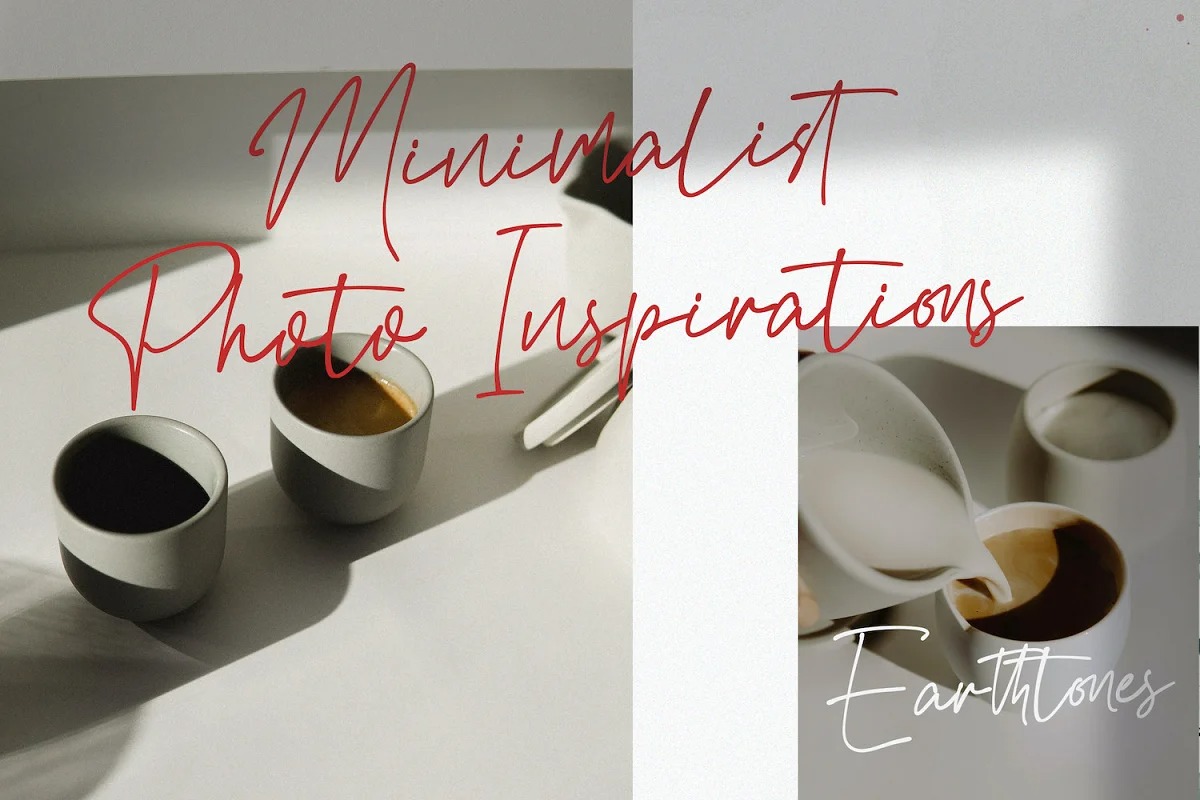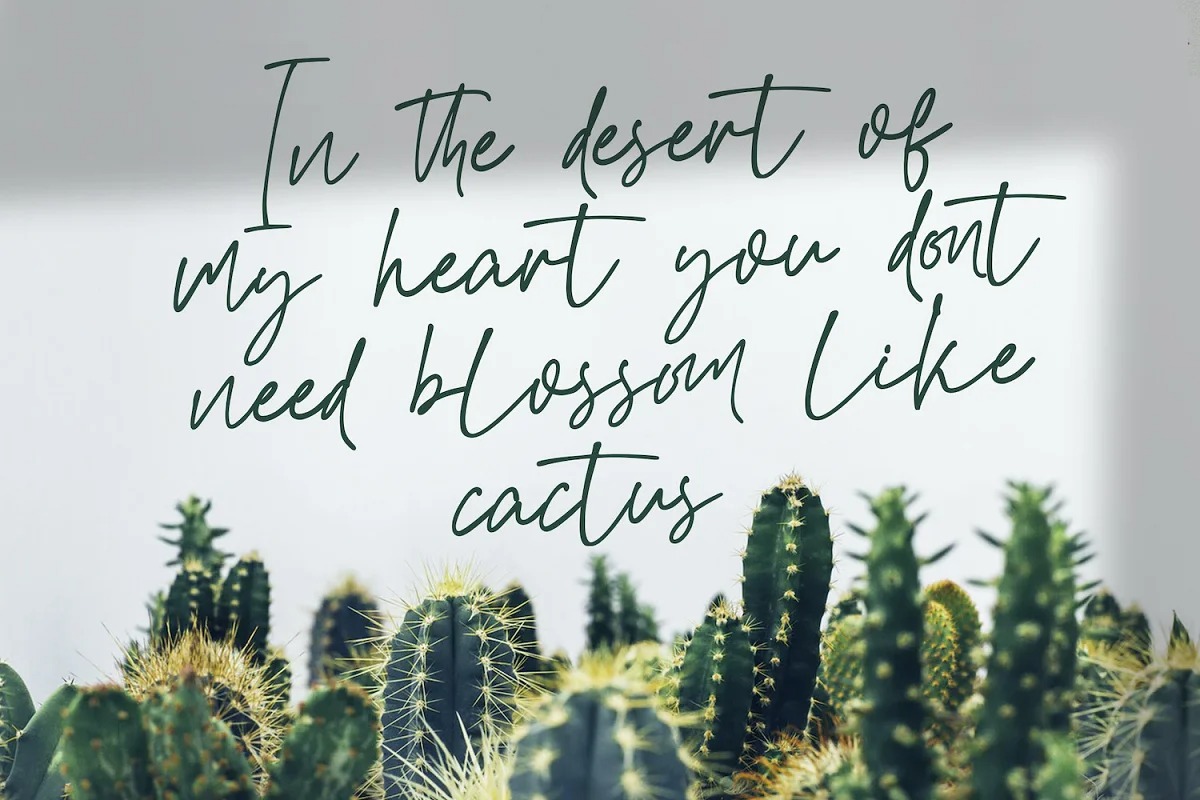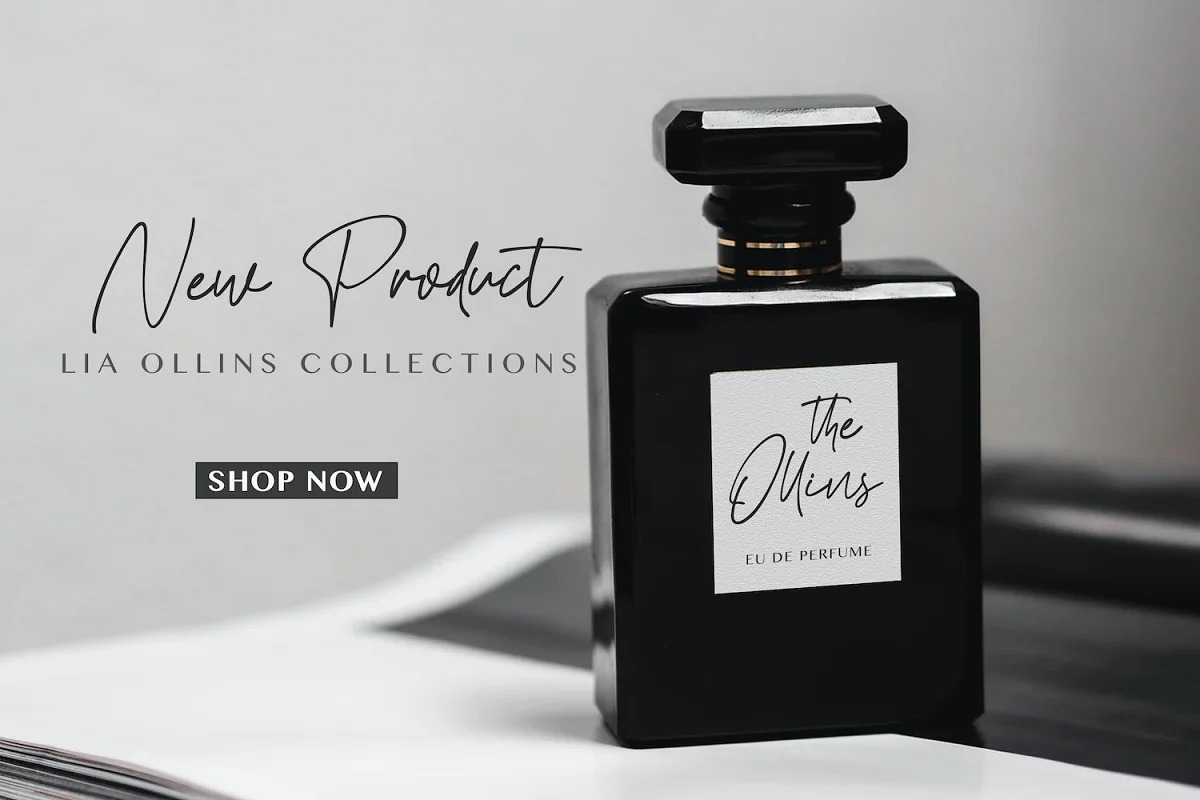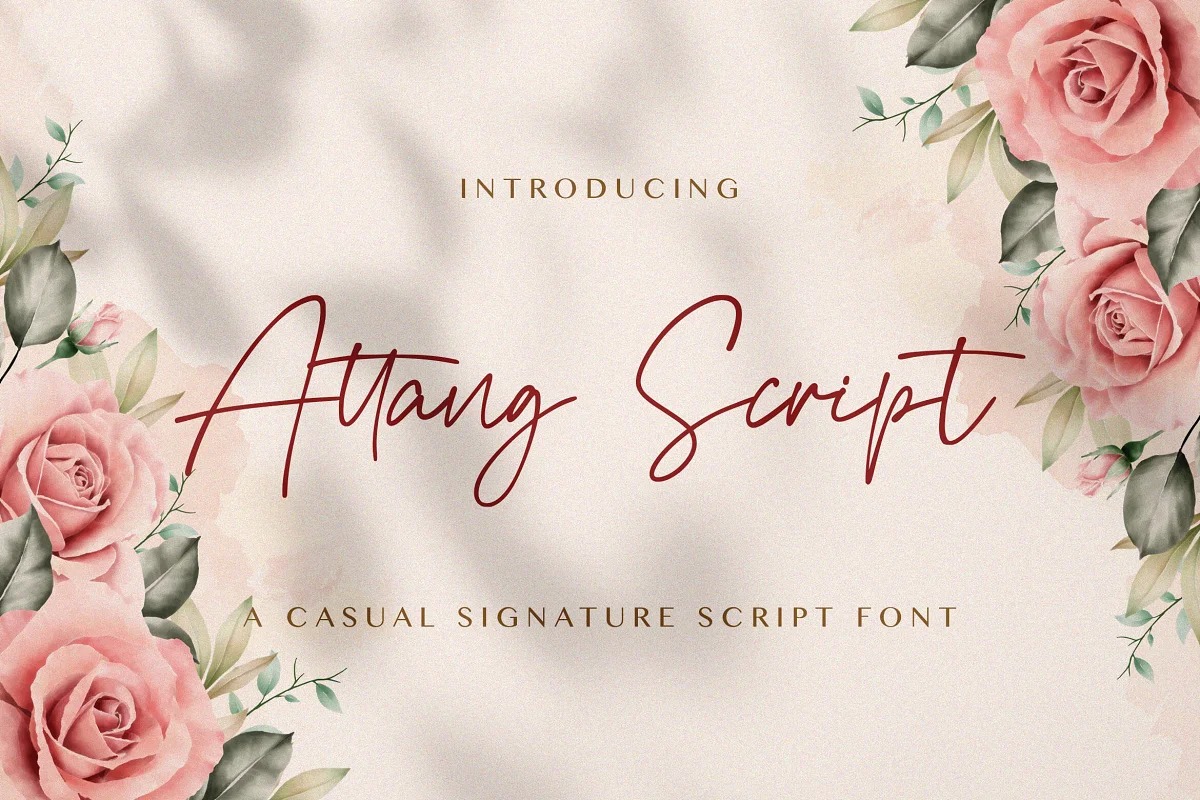
Attang Script Font
This is a whimsical script typeface from designer StringLabs. The letters are unique and bouncy. It has beautiful and well balanced characters and as a result, it matches a wide pool of designs. Add it to your most creative ideas and notice how it makes them come alive!